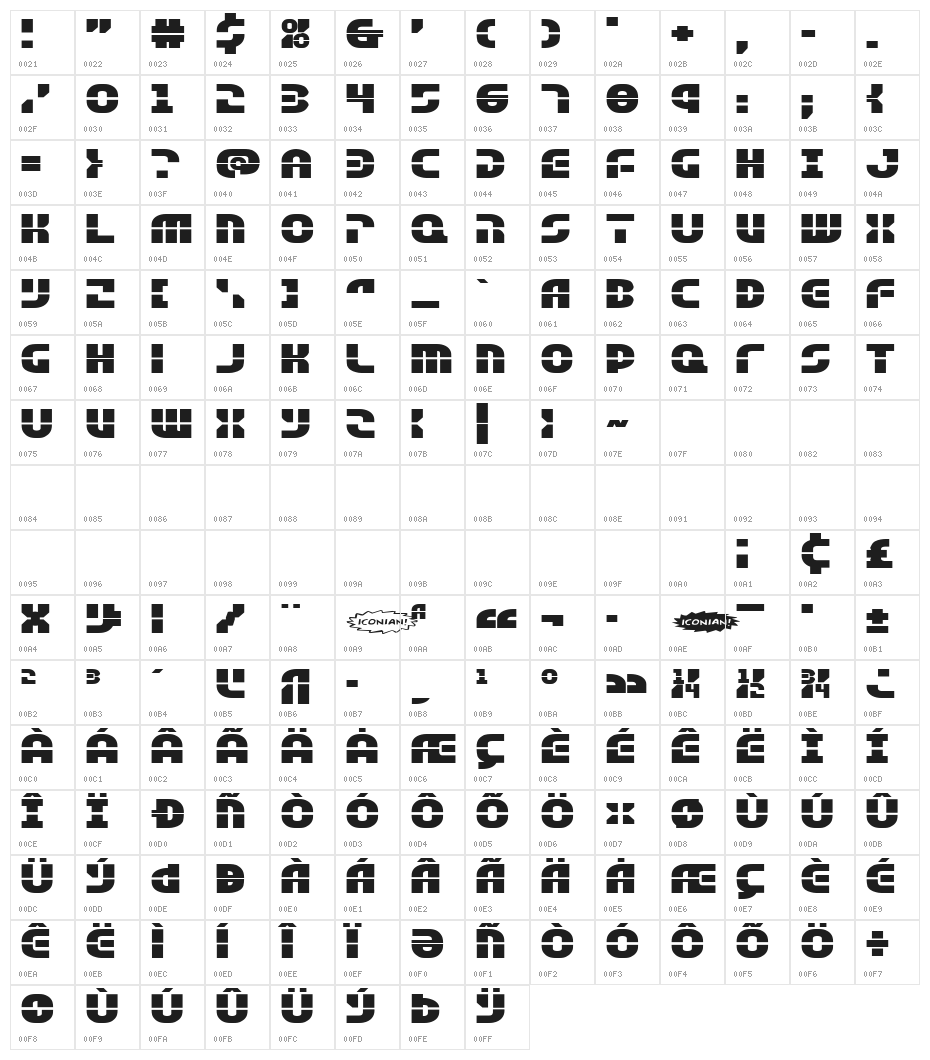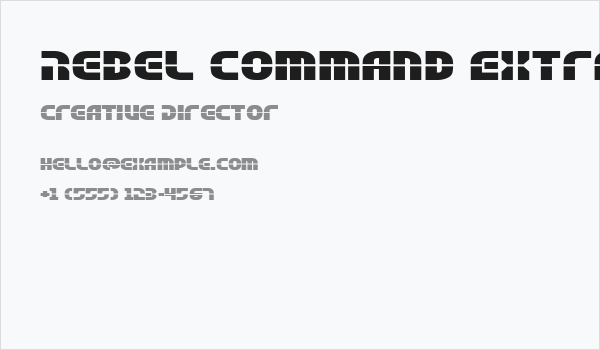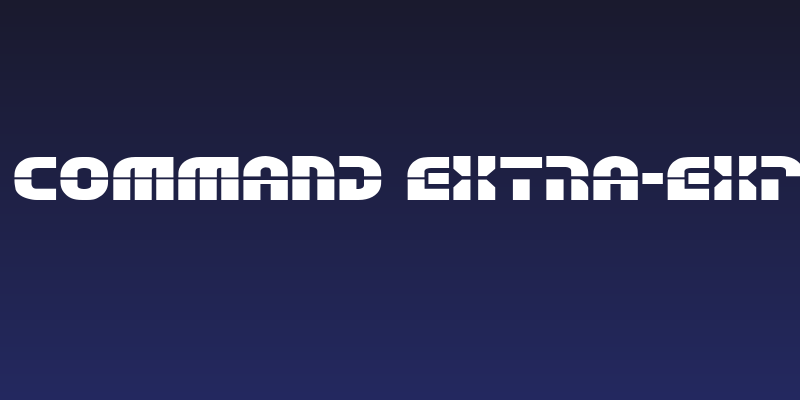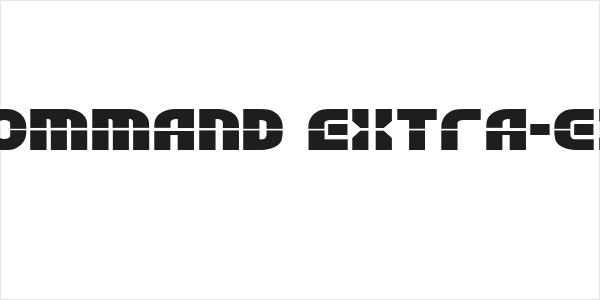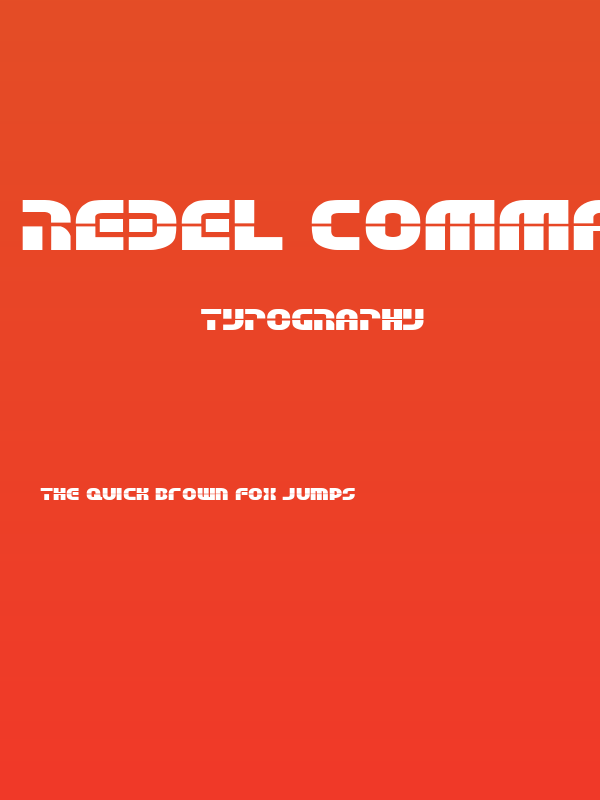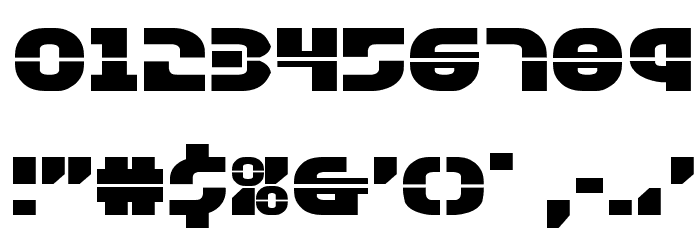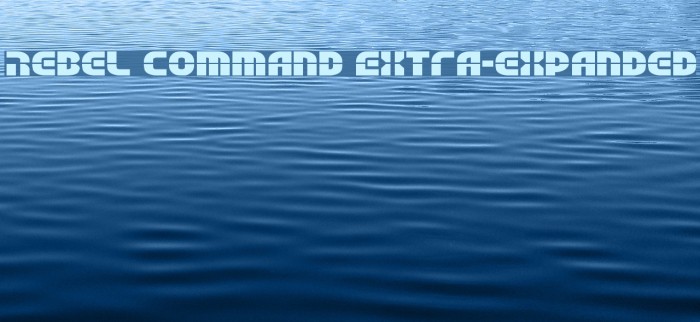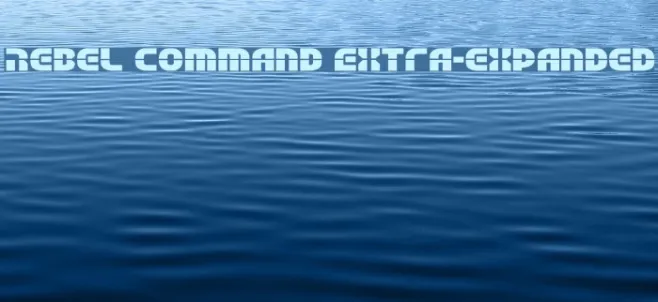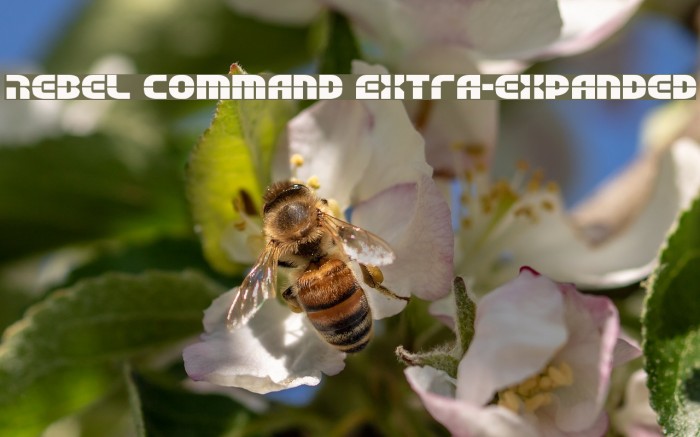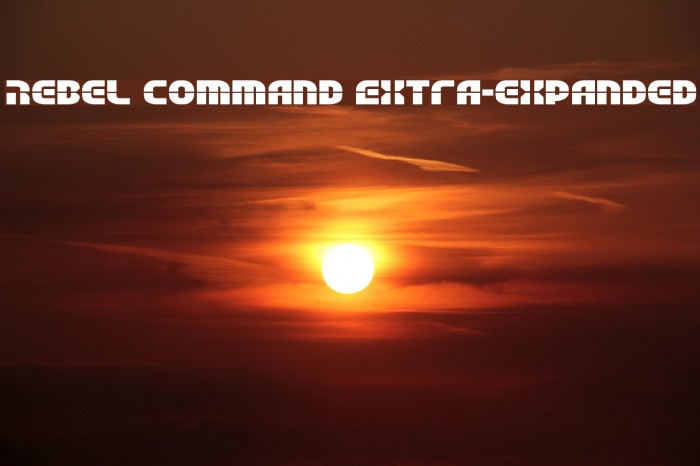
Rebel Command Extra-expanded Font
Rebel Command Extra-expanded Description
This font features a bold, futuristic design with a distinctly geometric and modular appearance. The characters are constructed with thick, uniform strokes, creating a strong visual impact. The style incorporates a stencil-like effect with breaks in the lines, adding a sense of modernity and industrial flair. The uppercase and lowercase letters maintain a consistent width, contributing to a cohesive and structured look. The numerals and special characters follow the same design principles, ensuring uniformity across all elements. This font is ideal for projects that require a bold and assertive typeface with a contemporary edge.
| Proposed Projects | Ideal for branding, posters, sci-fi themed projects, and digital media. |